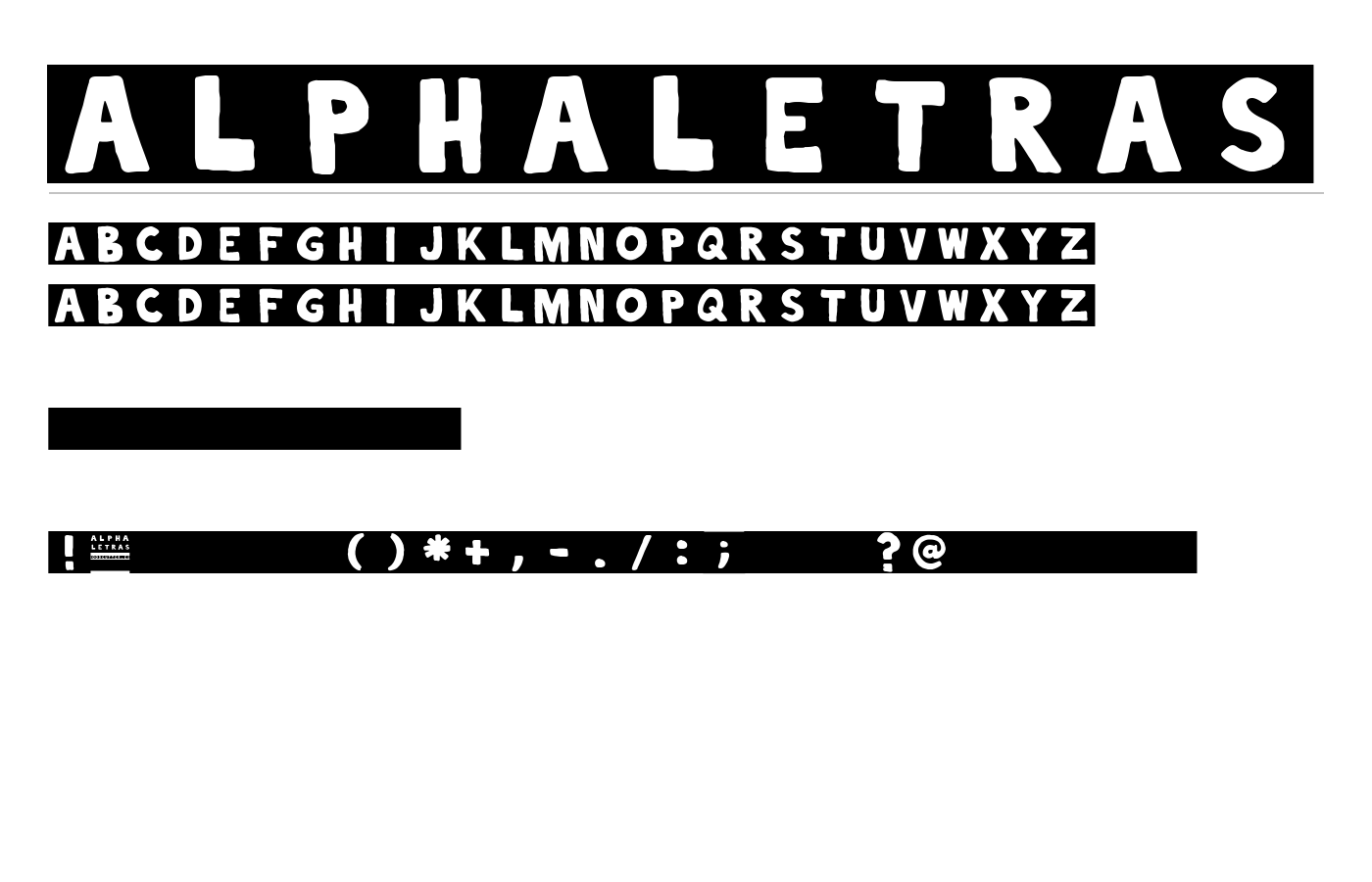
Alphaletras is a playful and bold sans serif font with a hand-drawn, slightly irregular style that adds a lively, informal touch to any project. Its chunky letterforms and strong presence make it ideal for eye-catching headlines, posters, and creative branding where a fun and approachable personality is desired. This font works especially well in designs seeking to convey energy and uniqueness with a casual, friendly vibe.